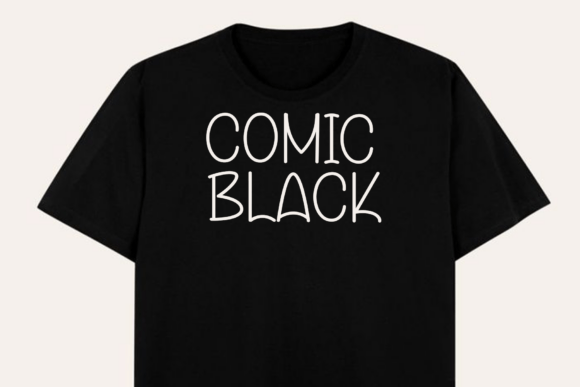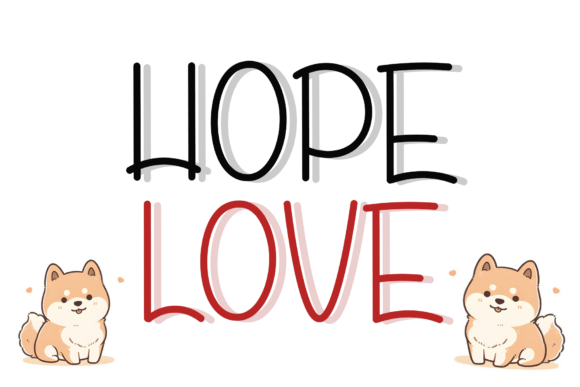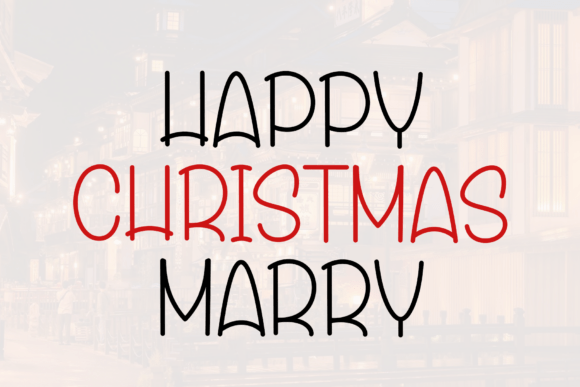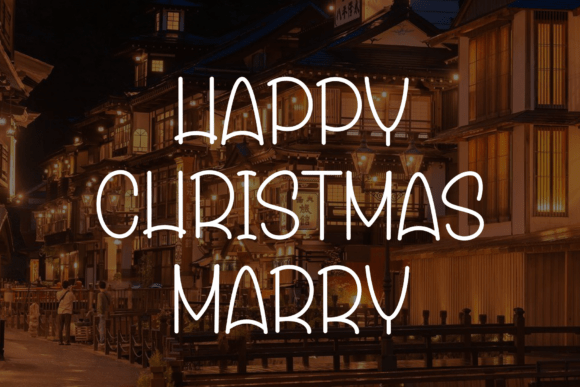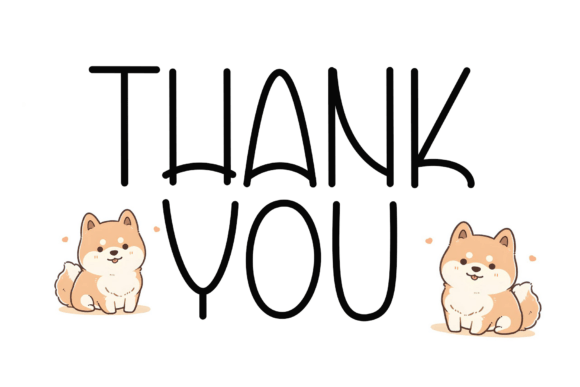
Discover the Charm of Breaks Adventure Font: Elevate Your Designs with a Timeless Handwritten Style
Are you on the hunt for a font that adds a personal touch to your designs? Look no further than the Breaks Adventure Font, a lovely and timeless handwritten font that is sure to capture the hearts of designers and crafters alike. This exquisite font is perfect for creating eye-catching logos, branding, and quotes that stand out from the crowd.
The Unique Charm of Breaks Adventure Font
What sets Breaks Adventure Font apart is its distinctive and beautiful touch. Every letter is carefully crafted to bring a unique character to your designs, making them come alive with a sense of personality and flair. Whether you’re working on a logo, a branding project, or a quote, this font is guaranteed to add a touch of elegance and sophistication.
Breaks Adventure Font is a versatile font that is perfect for a wide range of design projects. Whether you’re a professional designer or a crafter looking to add a personal touch to your work, this font is an excellent choice. Its timeless style ensures that your designs will never go out of fashion, making it a valuable addition to your font library.
Key Features of Breaks Adventure Font
- Timeless Handwritten Style: Breaks Adventure Font boasts a classic handwritten style that is both elegant and approachable.
- Unique Letterforms: Each letter has a distinctive and beautiful touch, ensuring that your designs stand out from the crowd.
- Ease of Use: This font is easy to read and works well in a variety of design applications, from logos and branding to quotes and more.
- Versatility: Breaks Adventure Font is suitable for a wide range of projects, making it a versatile addition to your font collection.
How to Use Breaks Adventure Font in Your Designs
Incorporating Breaks Adventure Font into your designs is straightforward. Here are a few tips to get you started:
- Logos and Branding: Use Breaks Adventure Font to create memorable logos and branding materials that reflect your brand’s personality.
- Quotes and Typography: Add a personal touch to your quotes and typography projects with the elegant and timeless style of Breaks Adventure Font.
- Digital and Print Materials: This font works beautifully in both digital and print materials, making it perfect for a wide range of applications.
Why Choose Breaks Adventure Font?
With so many fonts available, why choose Breaks Adventure Font? The answer lies in its unique blend of timeless style, elegance, and versatility. This font is not just a typeface; it’s a design statement that can elevate your projects and set them apart from the competition.
Breaks Adventure Font is a stunning handwritten font that offers a fresh and unique approach to typography. Its timeless style, combined with its distinctive and beautiful letterforms, makes it an excellent choice for designers and crafters looking to add a personal touch to their work. Whether you’re creating logos, branding materials, or quotes, Breaks Adventure Font is sure to bring your designs to life.